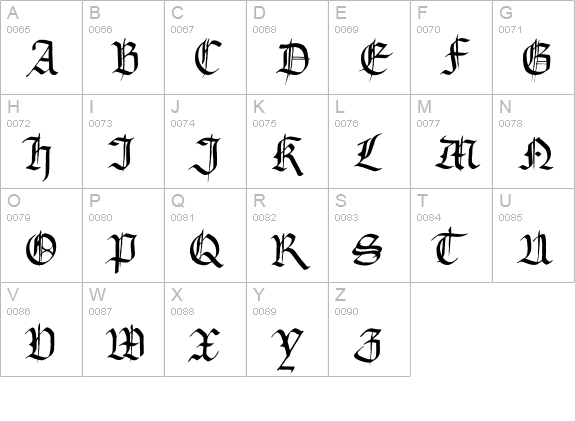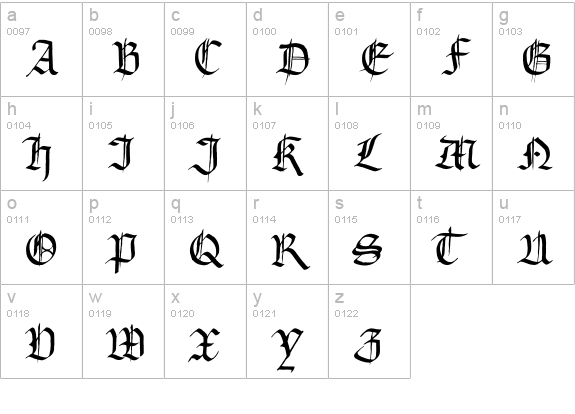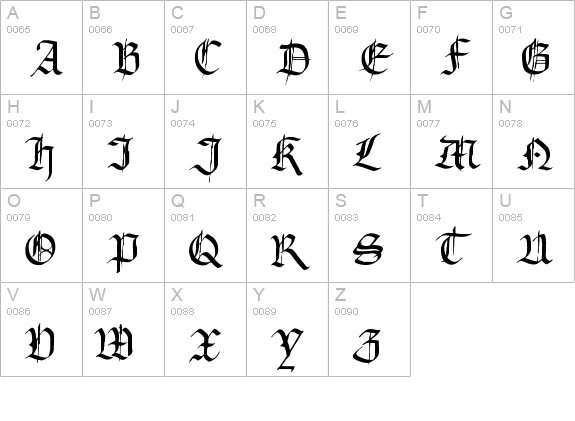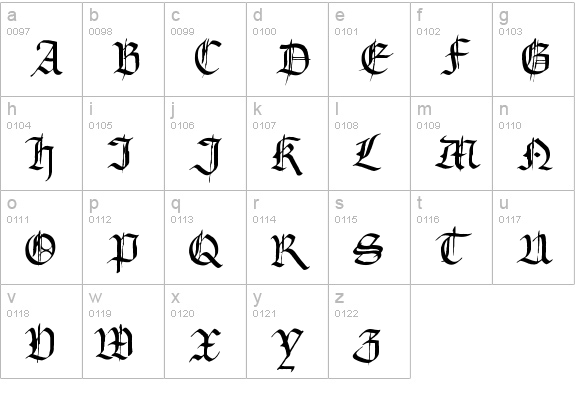
Gourdie Gothic Font Details
Introducing Gourdie Gothic, a bold and captivating font that exudes a timeless allure. With its strong, angular lines and intricate details, this typeface commands attention and adds a touch of elegance to any design project. Gourdie Gothic is a versatile font that effortlessly combines classic and modern elements, making it suitable for a wide range of applications. Whether you're working on a branding project, creating eye-catching headlines, or designing invitations for a special event, this font will elevate your work to new heights. What sets Gourdie Gothic apart is not just its impeccable design, but also its accessibility. This font is freely available to download at FontsMarket.com, enabling designers and enthusiasts alike to effortlessly incorporate its unique charm into their creations. Now, you can embrace the beauty of Gourdie Gothic without any limitations. With its extensive character set, including uppercase and lowercase letters, numbers, symbols, and punctuation marks, Gourdie Gothic offers endless possibilities for creative expression. Its clean and well-defined strokes ensure legibility at any size, while its distinct personality adds a touch of sophistication to every project. Whether you're aiming for a vintage-inspired look or a contemporary feel, Gourdie Gothic delivers with ease. Its timeless appeal makes it a perfect choice for logos, headlines, posters, packaging, and more. Let Gourdie Gothic be the standout element that sets your design apart and leaves a lasting impression on your audience. Embrace the freedom of expression with Gourdie Gothic, a font that combines elegance with versatility. Download it for free at FontsMarket.com and unlock a world of creative possibilities. Let your imagination run wild and watch as Gourdie Gothic breathes life into your designs, leaving a lasting impact that will be remembered for years to come.